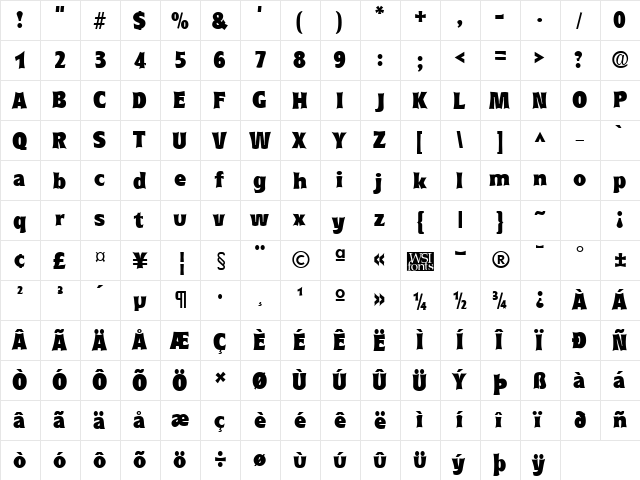
CurvacBlack Regular
Design Context for CurvacBlack Typeface
CurvacBlack offers clean, dependable letterforms without strong stylistic allegiance, making it a practical choice for designers who need flexibility.
Pro Tip: Use CurvacBlack in both headline and body roles to test its range before committing to a single application.